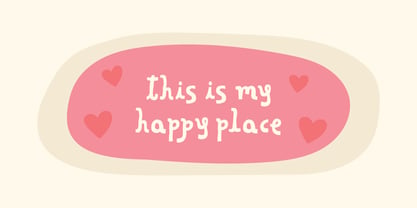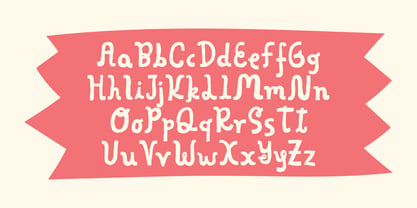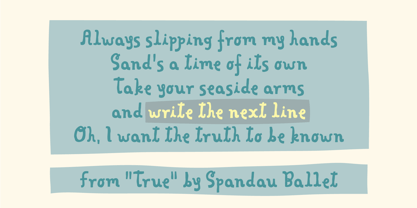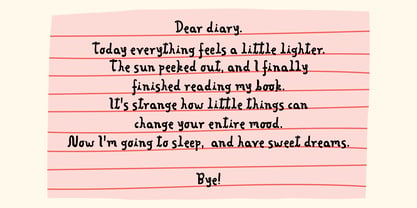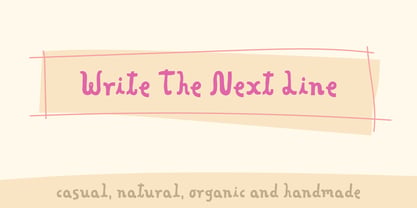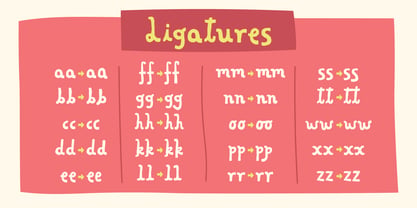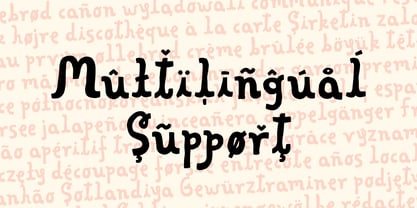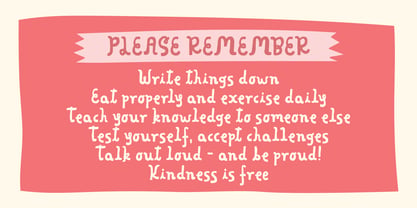
Write The Next Line
“Write The Next Line” is based upon drawings and sketches, which were made years ago. When I say years ago, I do mean that - because I was like 15 years old when I did the drawings. Now, like 40 years later, I managed to “fill out the holdes” - meaning, drawing all the missing letters and characters (there were quite a handful!)
I did the best I could, finishing these odd letters, imagining how I would have done it as a 15 year old Jakob.
Personally, I really like the innocence and the playfulness and the total lack of knowing how letters normally are drawn :)